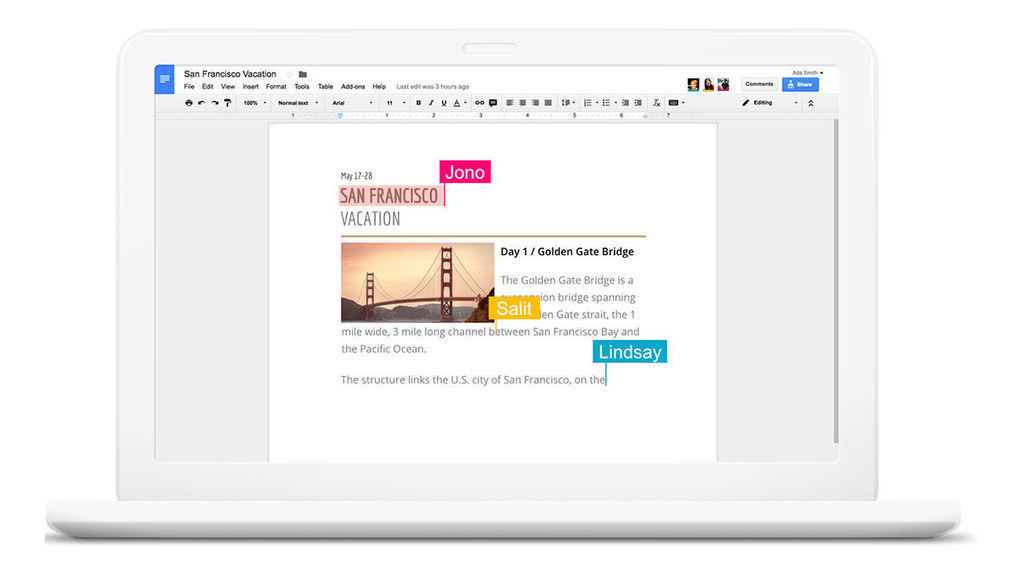
Cool fonts google docs. Cant find any fonts. For a more vintageclassic or elegant look check out the elegant script fonts and for a modern look check out the modern script fonts. Google drive is great for functionality but i want beautiful documents that are easy on the eyes. Commissioned by google fonts for use in google docs sheets and slides but suitable for any project spectral is a versatile serif face created by production type in paris thats available with seven weights of roman and italic from extra light through to extra bold with small caps included.
Embedding fonts using the. No matches in the open source catalog. Google fonts now supports variable fonts. These are the 40 best free web fonts available on google fonts in my humble opinionthey are all open source and 100 free for commercial use.
Click the font drop down menu it probably says arial on your document as thats the default for google docs on the google docs toolbar. Making the web more beautiful fast and open through great typography. Cute cool fonts on google docs. Inspired by six centuries of french type design.
Making the web more beautiful fast and open through great typography. Google fonts make it quicker and easier for everyone to use web fonts including professional designers and developers. Google docs has support for third party add ons that you can use to increase functionality of google docs. All of the fonts are open source which mean you can use them in every way you want privately or commercially in print on your computer or in your websites.